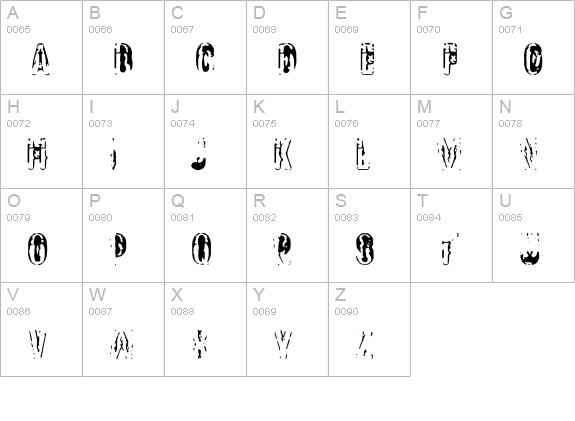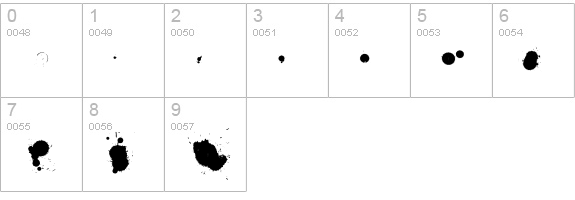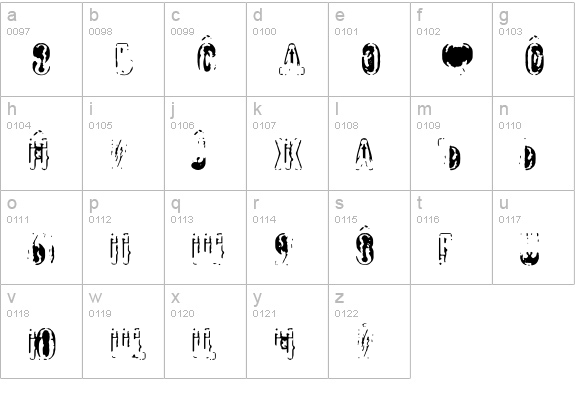
CICOPACO Font Details
Introducing CICOPACO font, a delightful and versatile typeface that is sure to add a touch of creativity to your design projects. This unique font features a charming blend of modern and playful elements, making it perfect for a wide range of applications. With its quirky shapes and distinctive characters, CICOPACO font is ideal for creating eye-catching headlines, logos, posters, and more. Whether you're working on a fun and whimsical project or aiming for a more sophisticated look, this font has you covered. Best of all, CICOPACO font is available for free download at FontsMarket.com. So go ahead and unleash your creativity with this one-of-a-kind typeface today!